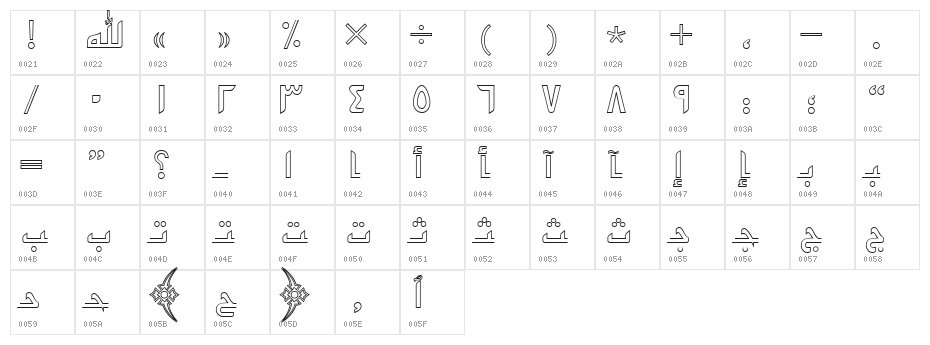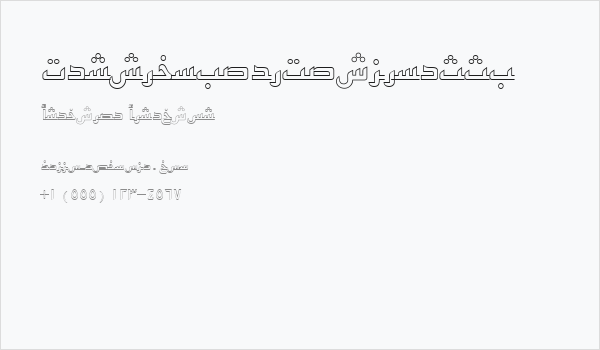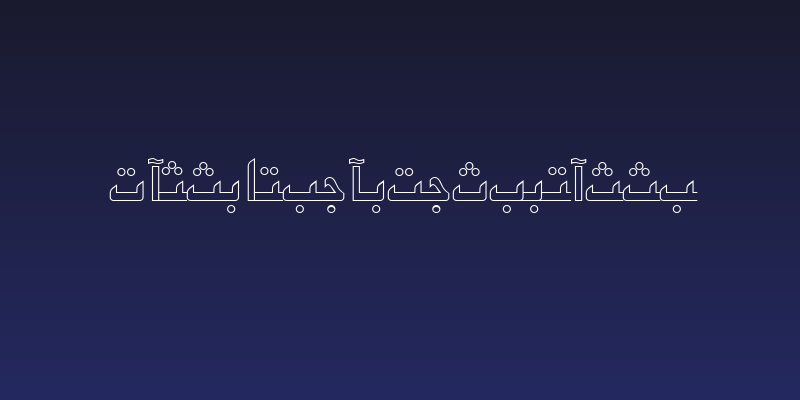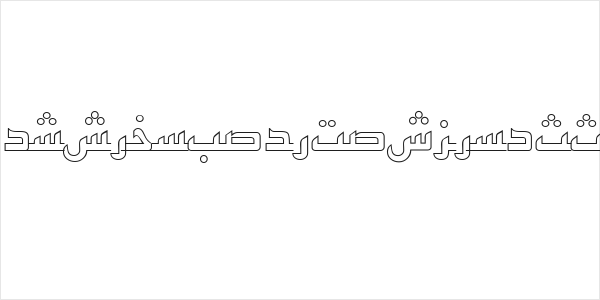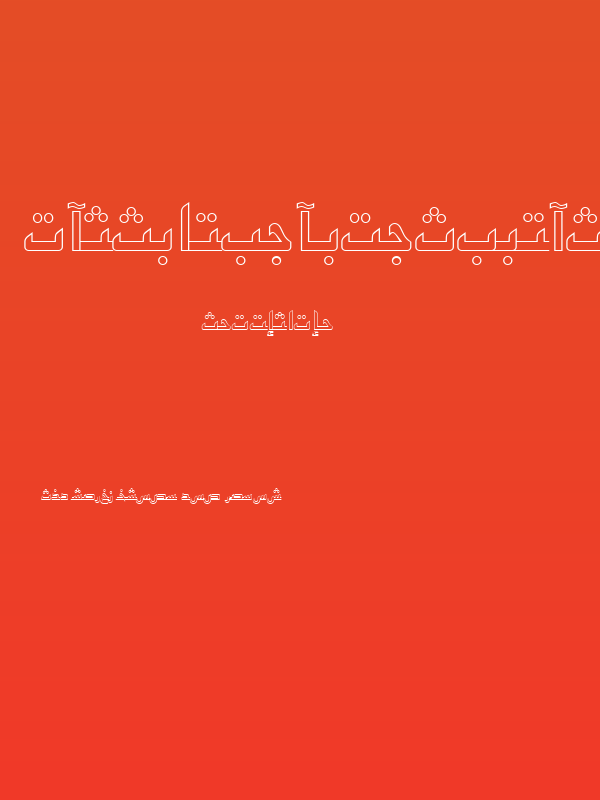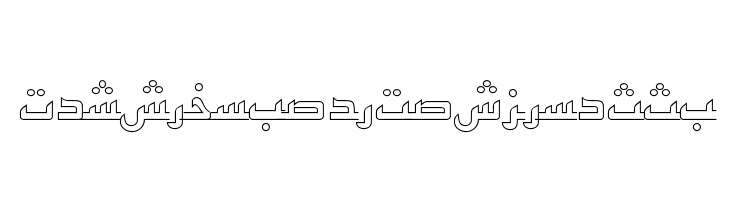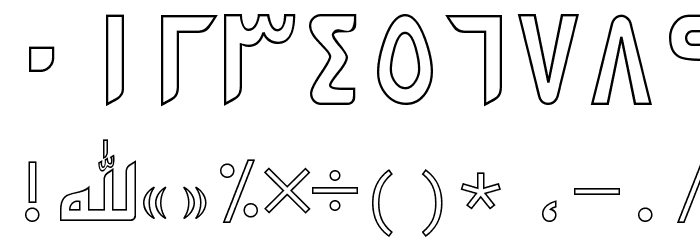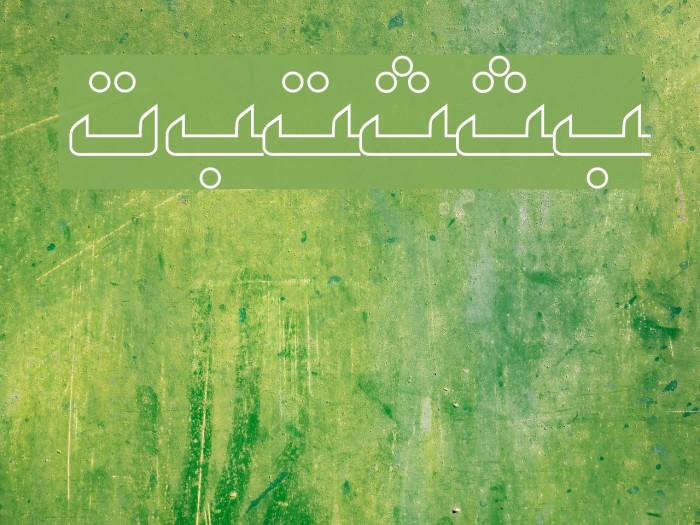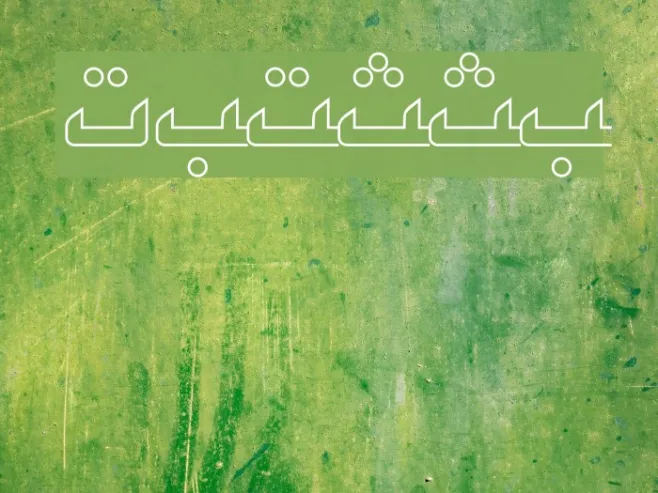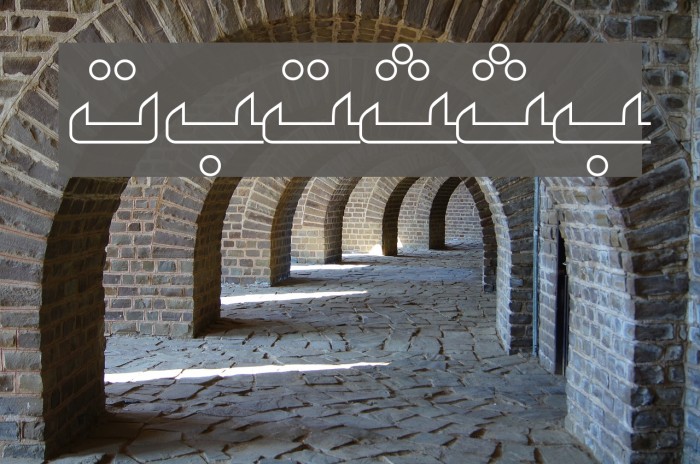
PersianKufiOutlineSSK Font
| Progetti proposti | Ideal for branding, posters, and cultural event materials where a touch of historical elegance is desired. |